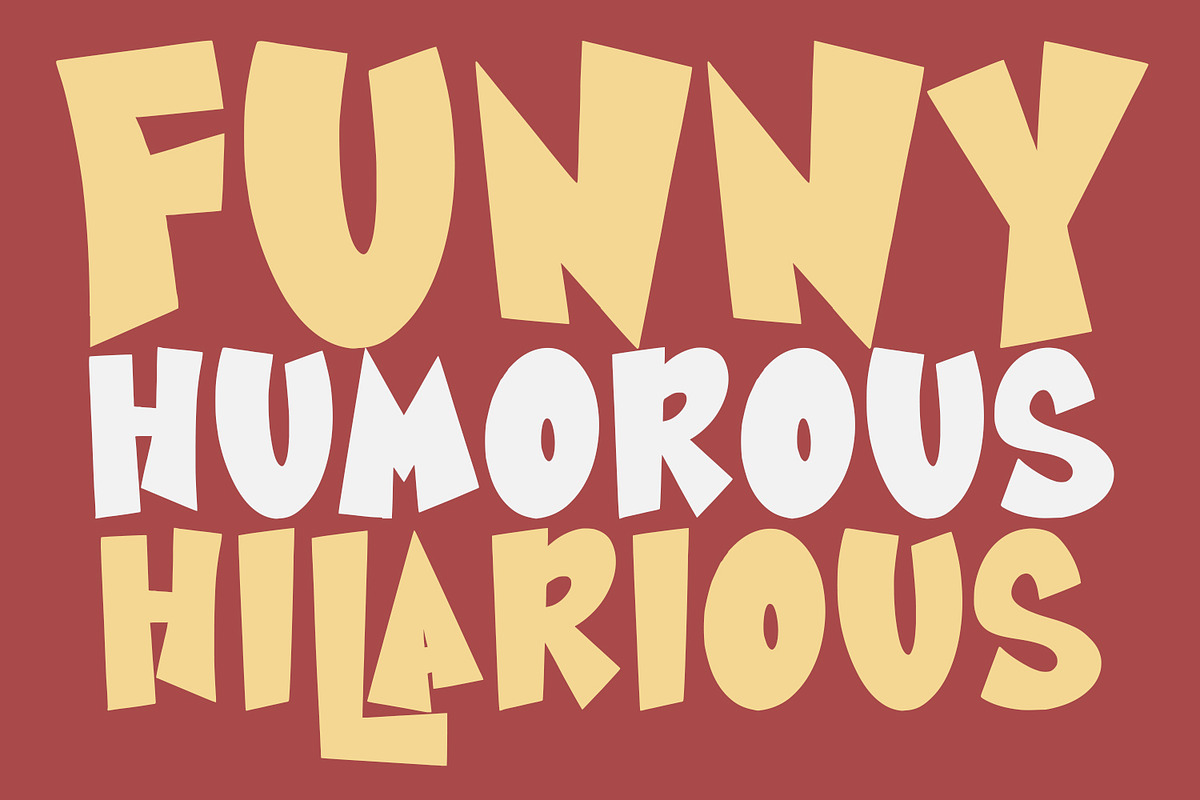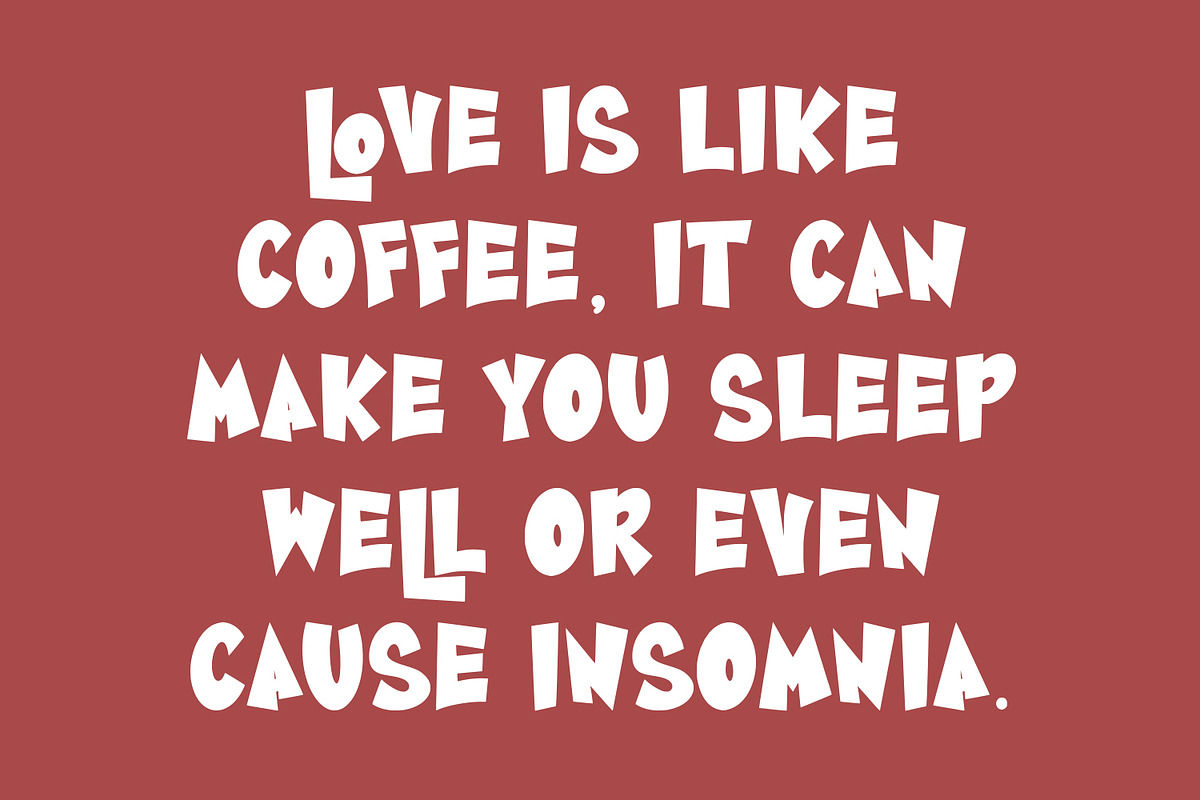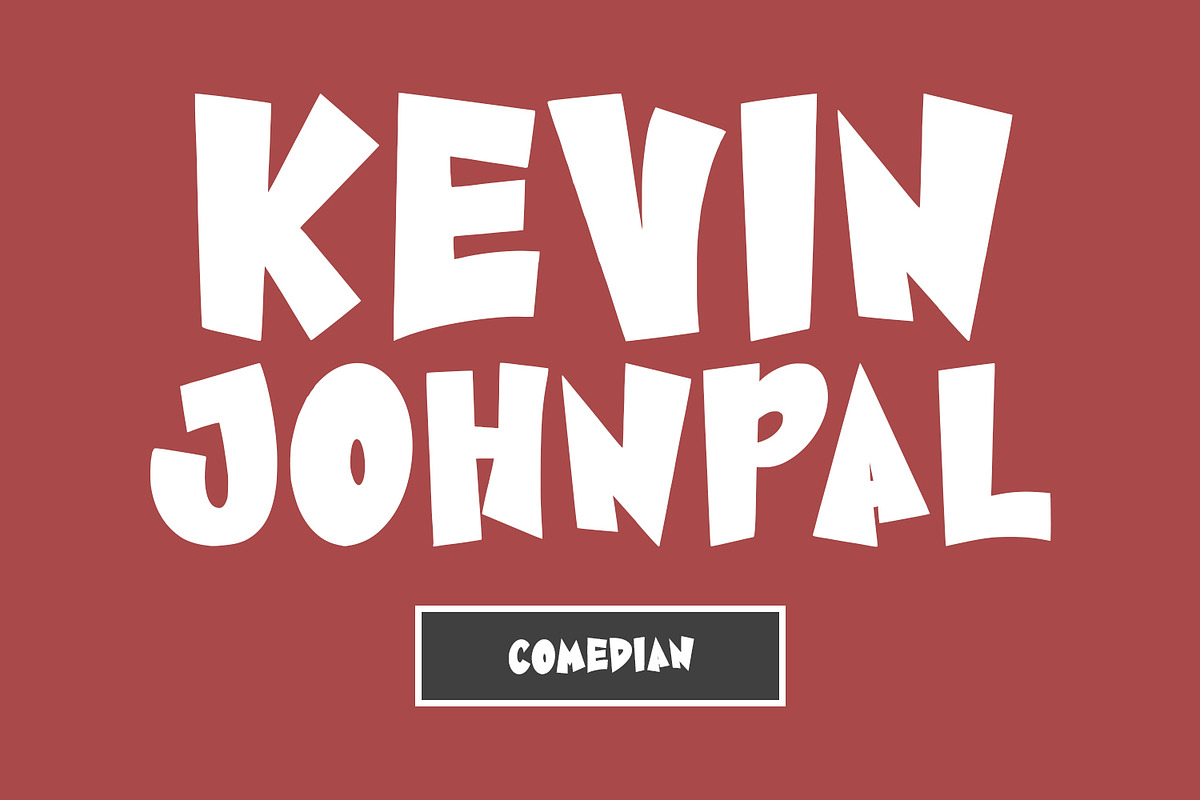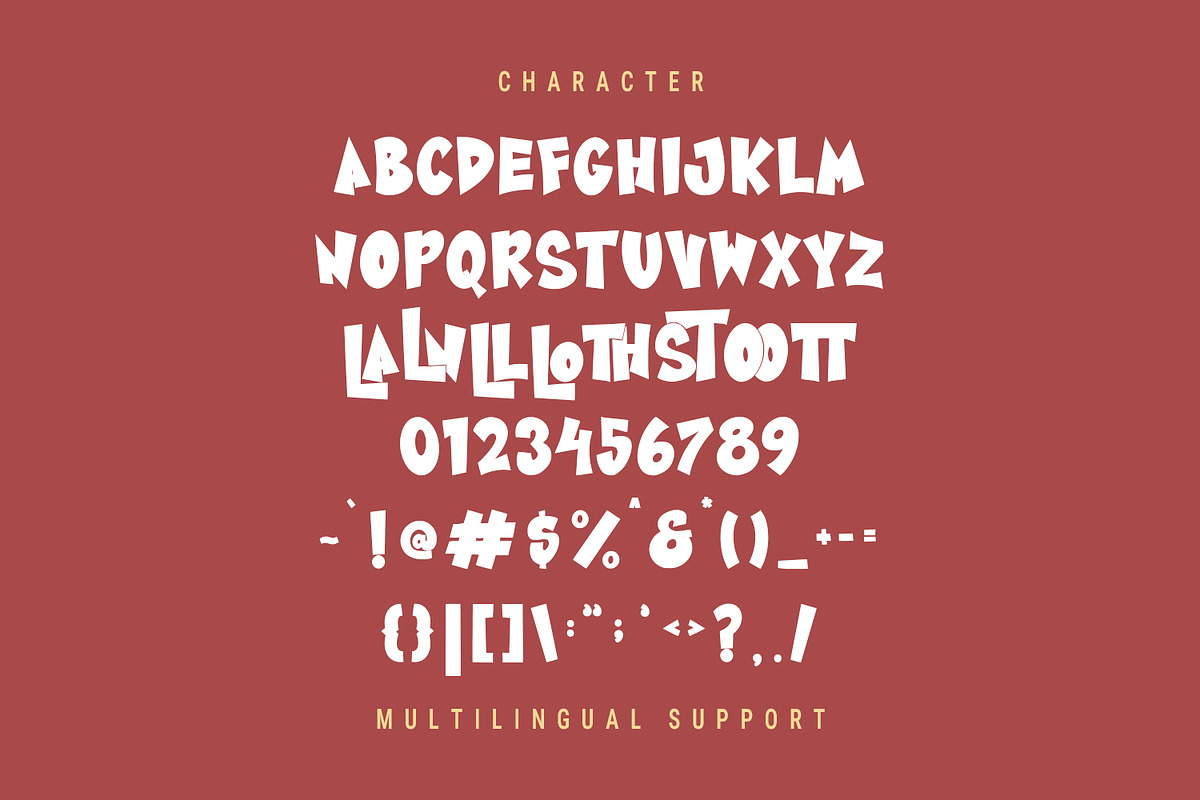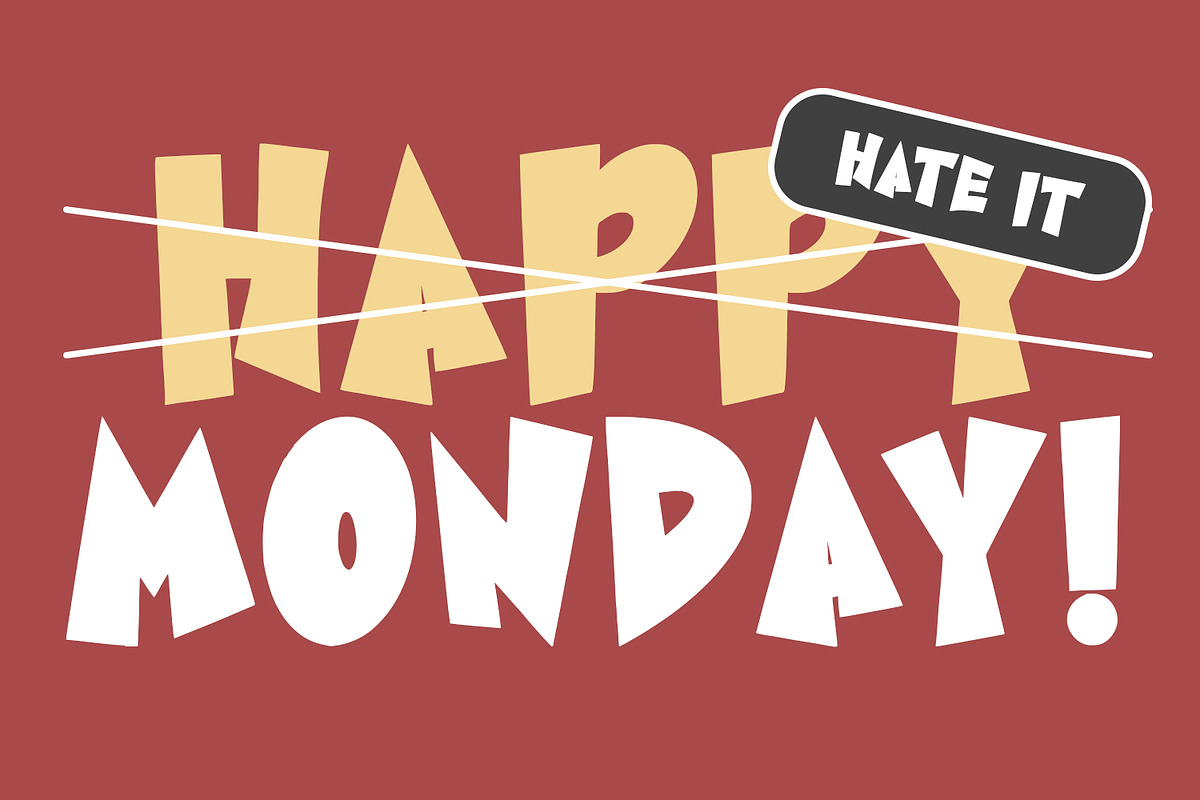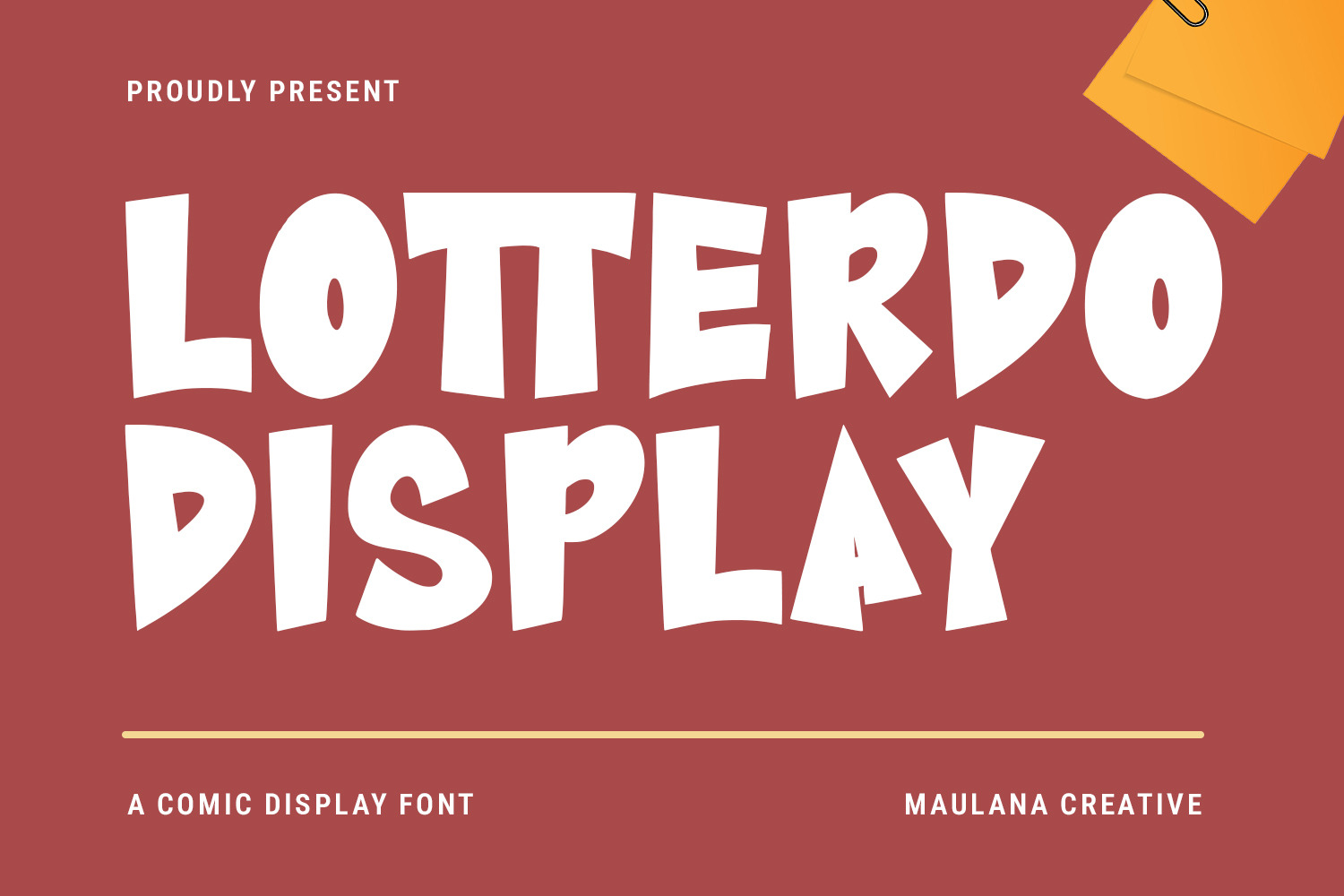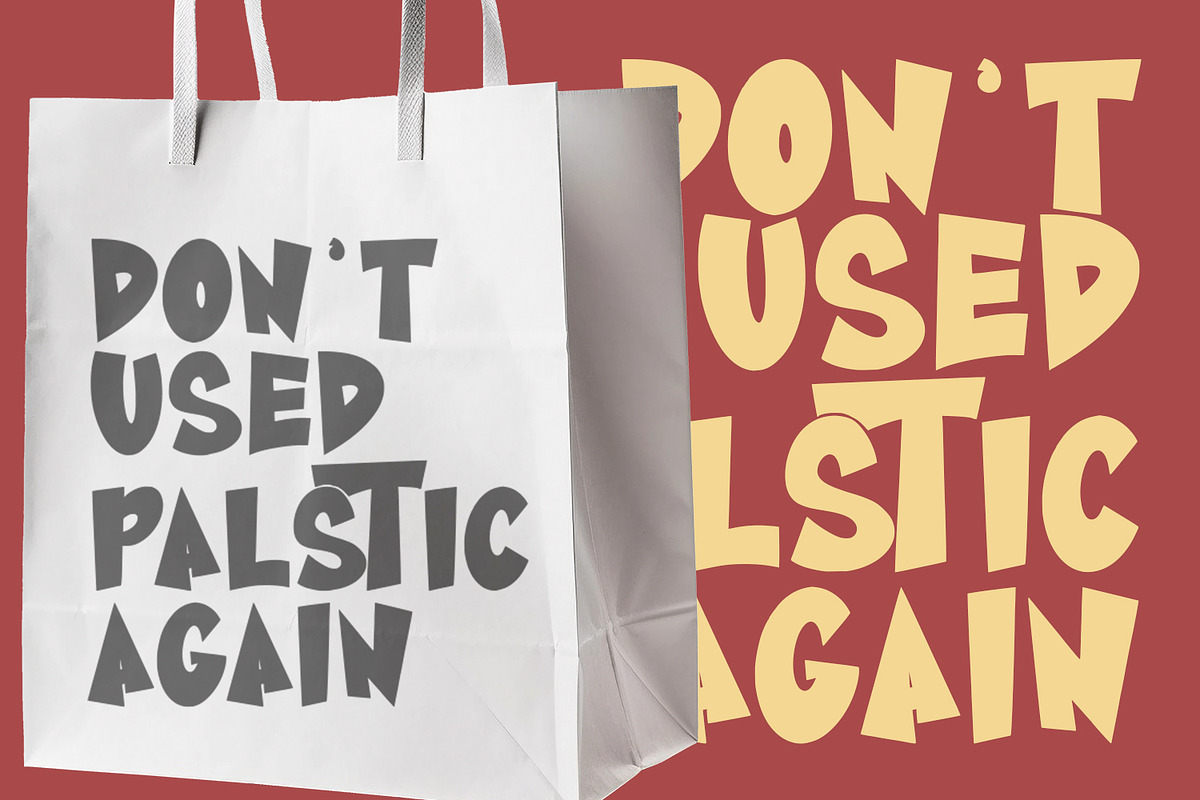
Lotterdo Comic Display Font
Lotterdo is a handwritten display font. With bold stroke, fun character with a bit of ligatures. To give you an extra creative work. Lotterdo font support multilingual more than 100+ language. This font is good for logo design, Social media, Movie Titles, Books Titles, a short text even a long text letter and good for your secondary text font with sans or serif. Make a stunning work with Lotterdo font.